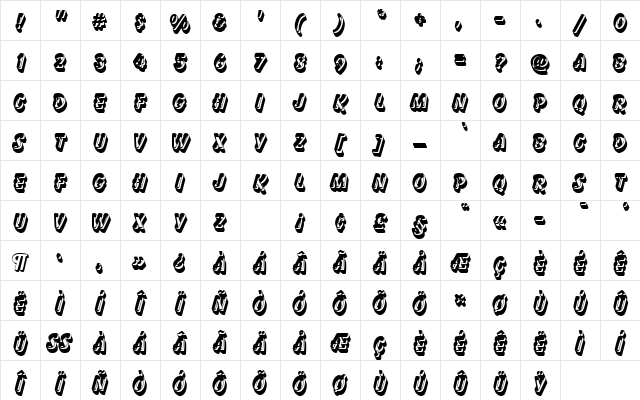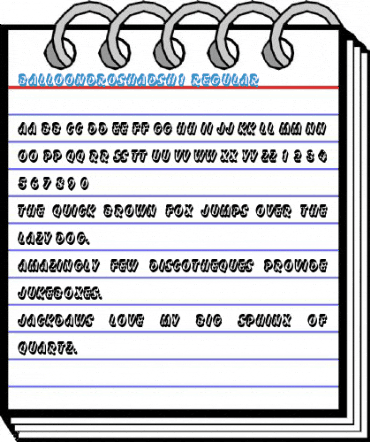
BalloonDroShaDSh1 Regular
Design Context for BalloonDroShaDSh1
BalloonDroShaDSh1 is a composed and adaptable typeface that performs quietly and consistently across a wide range of design contexts.